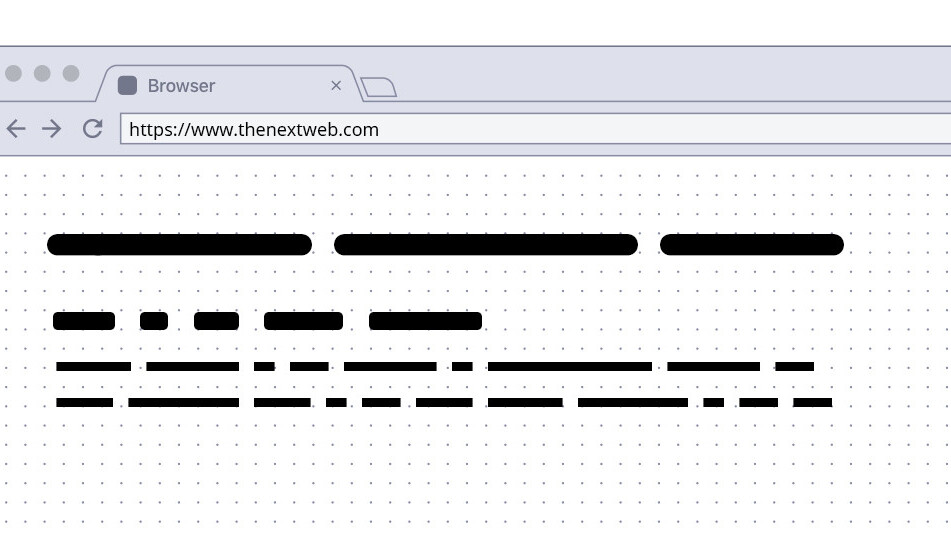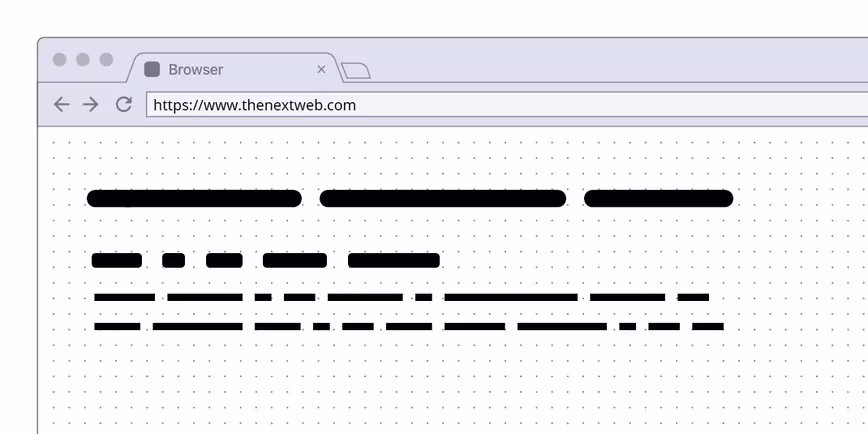
Wireframing is an integral part of the design process in building web and mobile apps, and speed is key to getting your ideas on to the drawing board. That’s why it makes sense to ditch all the standard ‘lorem ipsum’ dummy text and go with Flow.
This free typeface, created by Shopify designer Dan Ross, skips letters and instead features abstract representations of text for sentences and paragraphs in three different weights. It’s perfect for when you don’t want to bother with exactly what your text will look like, and just focus on its placement and basic alignment.